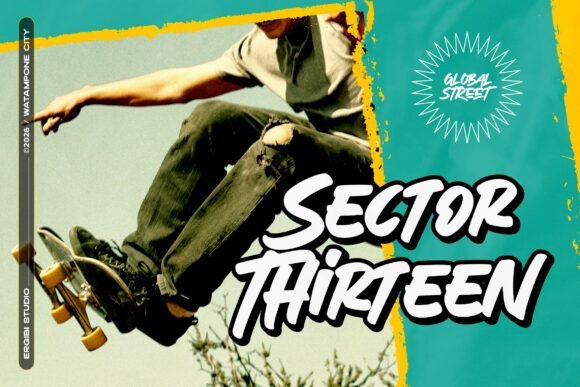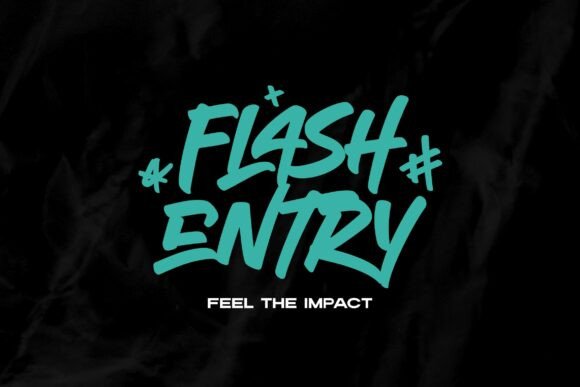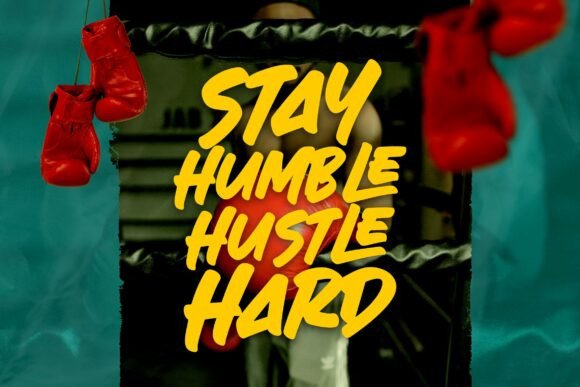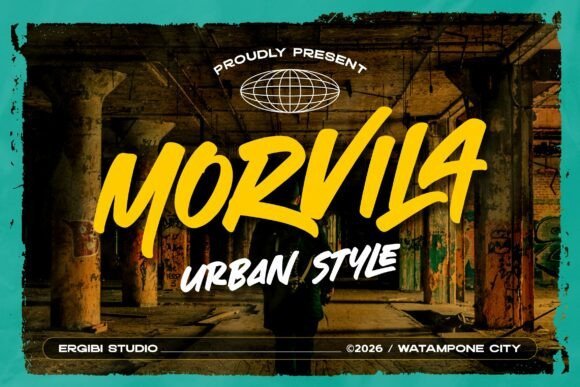
Introduction to Morvila Font
MORVILA is a bold yet smooth urban display typeface designed to deliver strong visual impact with a clean finish.
Unlike rough brush or textured styles, MORVILA features solid, confident strokes with refined curves — creating a modern street aesthetic that feels powerful but polished Built for standout headlines and expressive branding, MORVILA blends urban attitude with smooth readability.